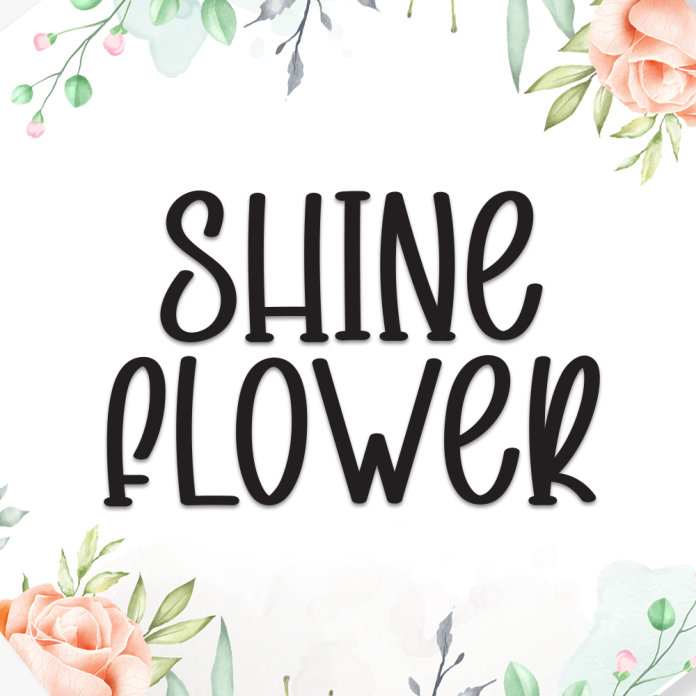
Shine Flower is a cheerful and eye-catching display font that radiates positivity and charm. Inspired by blooming flowers and sunny days, its bold yet whimsical letterforms make it perfect for designs that aim to feel joyful, fresh, and full of life.
Great for spring-themed projects, event posters, children’s products, packaging, and happy branding, Shine Flower adds a burst of brightness wherever it goes.
Fun and bold display style
Floral-inspired curves with a playful aesthetic
Perfect for seasonal designs, kid-friendly themes, packaging, and decorative projects
Let your creativity bloom with Shine Flower, the display font that brings sunshine to your designs.